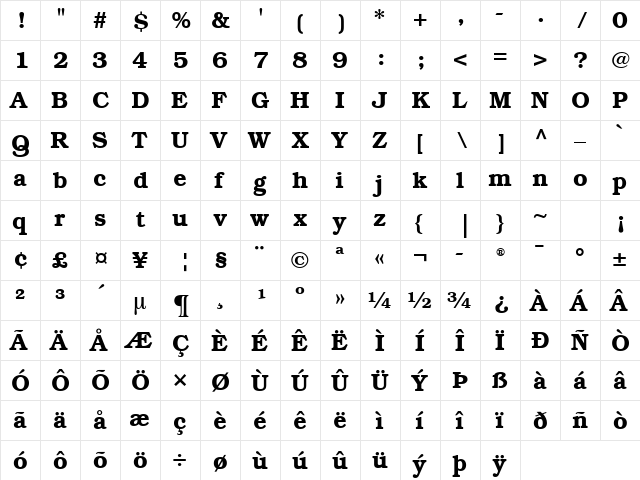
Bookman S Demi
Design Context for Bookman S Typeface
Bookman S takes a measured approach to typography — its balanced proportions and neutral character make it a reliable workhorse for both digital and print work.